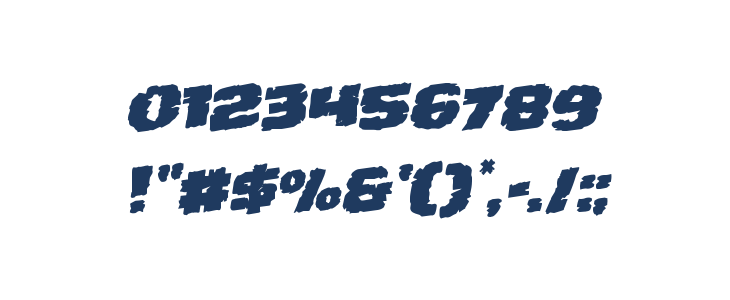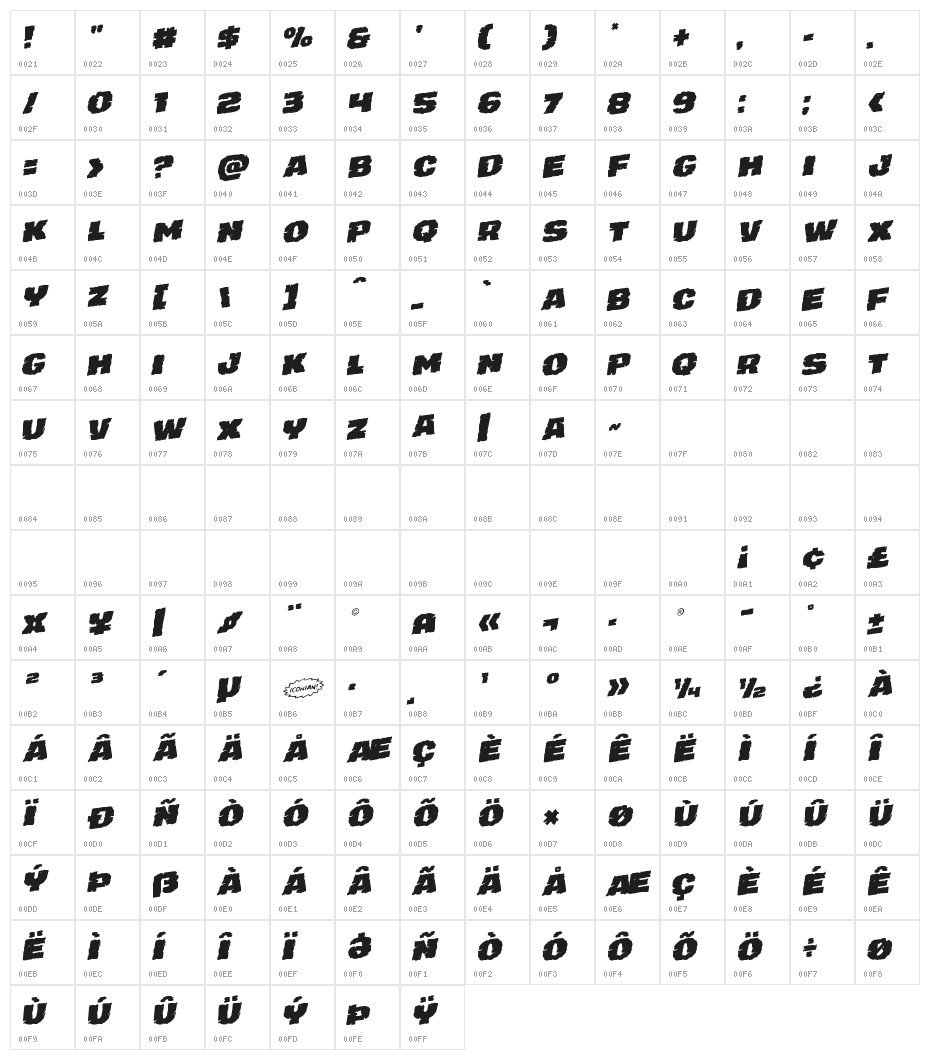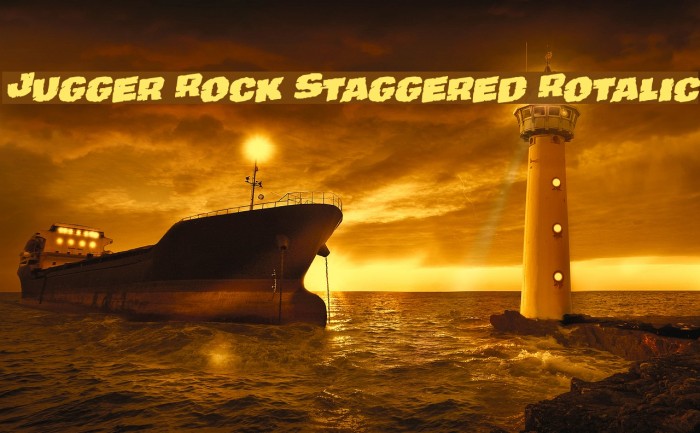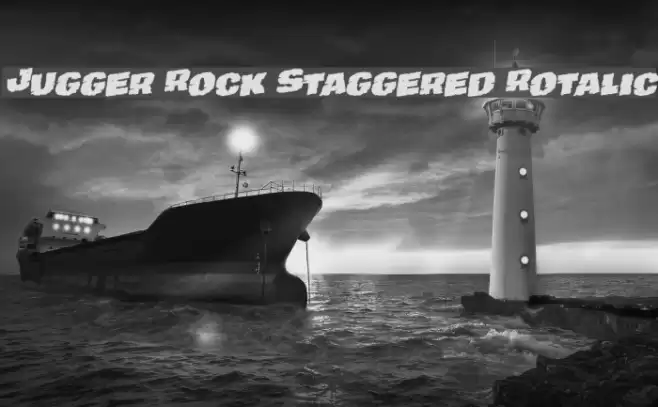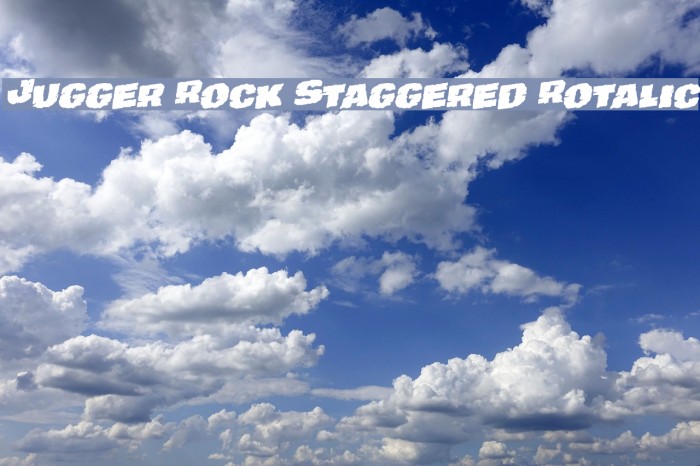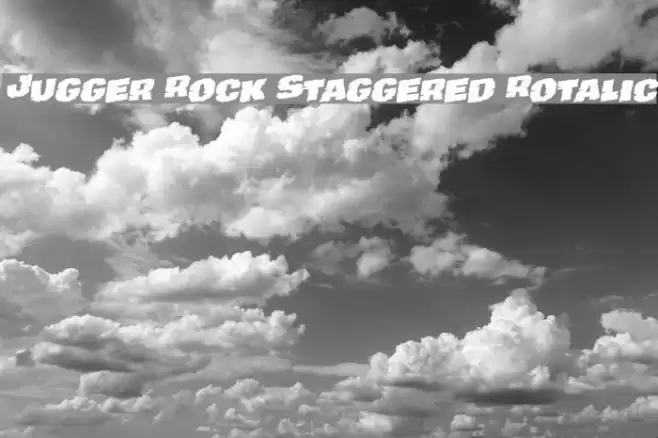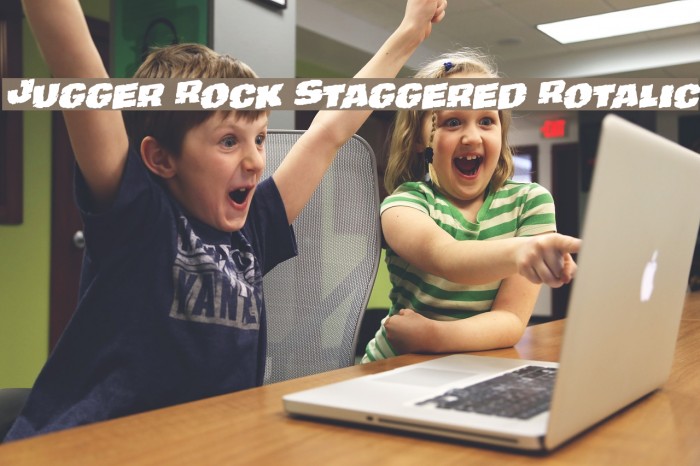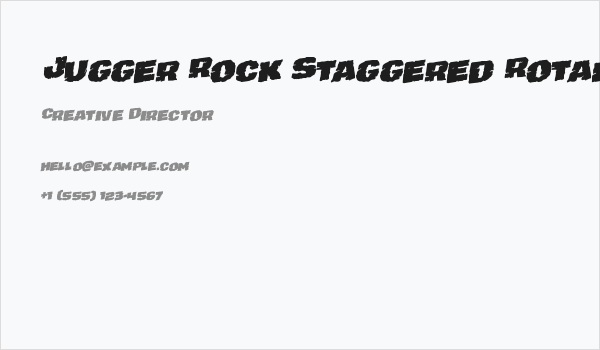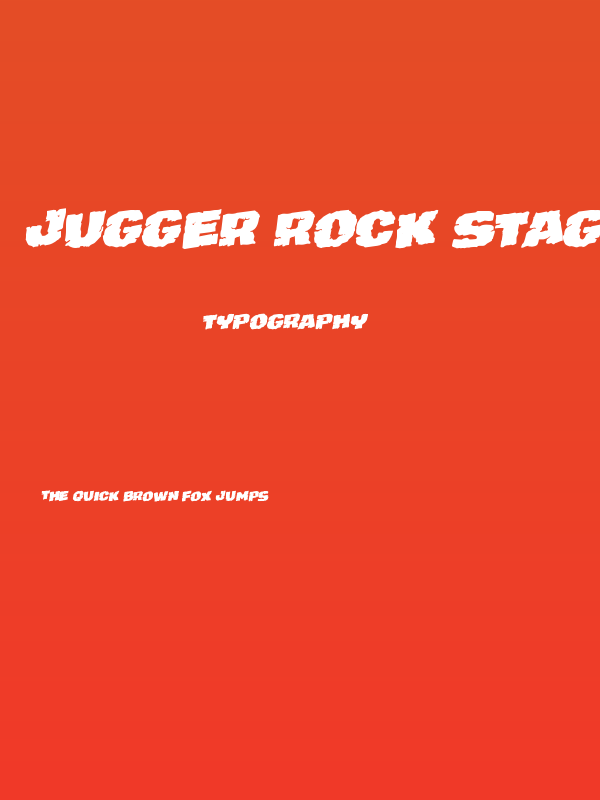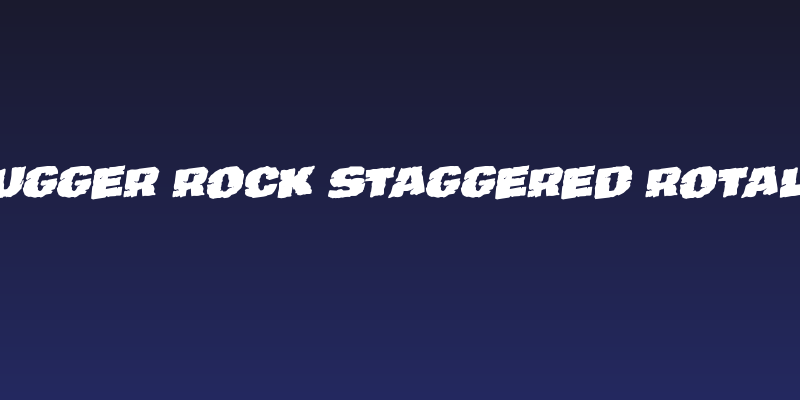
Jugger Rock Staggered Rotalic Font
Jugger Rock Staggered Rotalic Description
This font features a bold and rugged style with a staggered, rock-like texture that gives it a dynamic and energetic appearance. The letters are heavily stylized with uneven edges, creating a sense of movement and intensity. The uppercase and lowercase letters maintain a consistent design, while the numbers and special characters follow the same bold and textured theme. The overall look is aggressive and impactful, making it suitable for projects that require a strong visual presence.
| Use Case | Logos, Headlines |
| Proposed Projects | Ideal for music album covers, sports team logos, action movie posters, and extreme sports branding. |